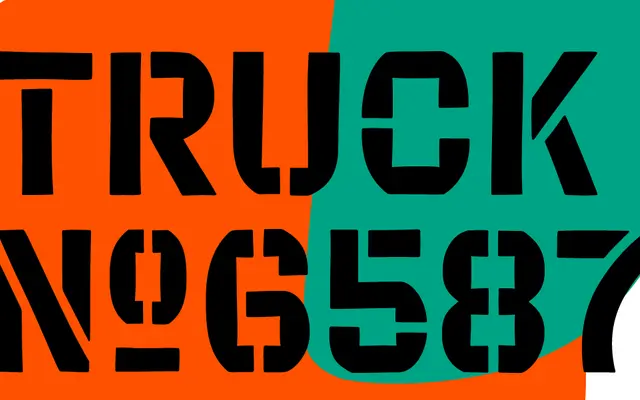
XYZ Type · Jesse Ragan · 2017
An all-caps display face drawn from hand-carved flexo lettering found on a New York shipping box, available in Regular and Stencil cuts.
Jesse Ragan traced the source material back to a cardboard shipping box printed from an anonymous hand-carved flexo plate, preserving the bulges, pinches and rough edges of the original marks. The Regular cut carries a blocky industrial rhythm that reads as eccentric in isolation but settles into texture at length; the Stencil variant applies a network of breaks that feel simultaneously practical and absurd. Named a Typographica favourite of 2017.
An all-caps display typeface drawn from hand-carved flexo lettering on a shipping box, with a stencil variant; the industrial, blocky, uppercase-only construction firmly places it in the display category with stencil subcategory.